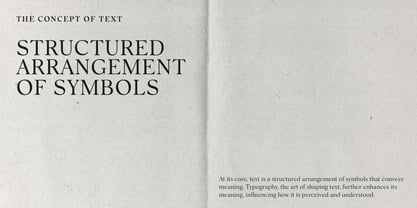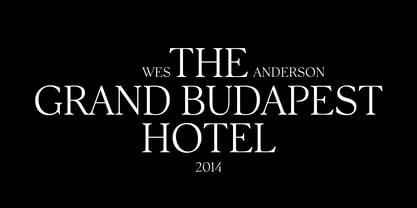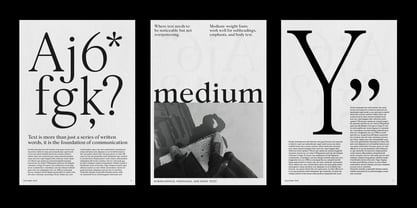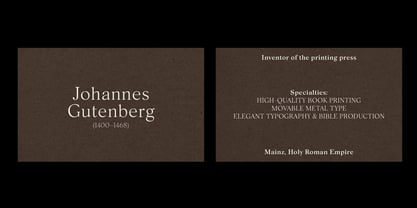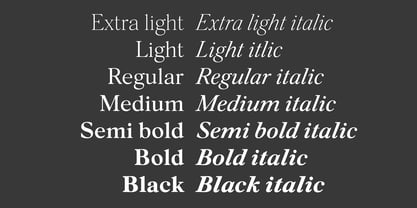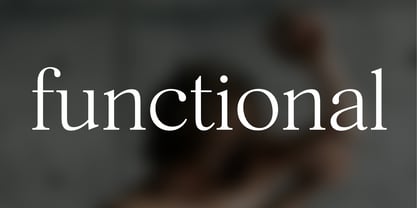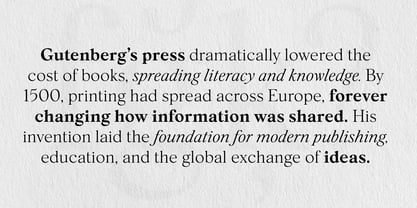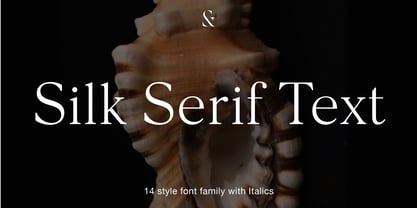
Silk Serif Text
by SilkType
The Silk Serif Text Font Family was designed by Rakel Tómasdóttir and published by SilkType. Silk Serif Text contains 14 styles and family package options.
Silk Serif Text is an extension of Silk Serif, designed specifically for smaller text sizes while maintaining the elegance and sophistication of the original. With adjusted proportions, lower contrast, and improved spacing, Silk Serif Text ensures optimal readability in captions, body text, and long-form content.
Designed to work effortlessly with Silk Serif, this version brings the same refined aesthetic to editorial layouts, branding, and print materials, where clarity and legibility matter. Whether used on its own or alongside Silk Serif, it creates a well-balanced typographic system for designers who want both style and function.
Silk Serif Text is available in 14 styles—both Roman and Italic, ranging from Extra Light to Black. It supports Western, Central, and South Eastern European languages, ensuring versatility across a wide range of projects.